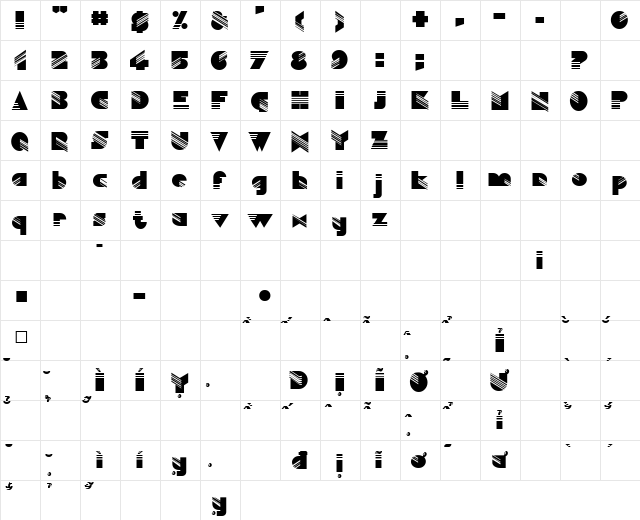
VNI-Aztek Bold Font Preview
VNI-Aztek Bold
Design Context for VNI-Aztek Typeface
VNI-Aztek is a composed and adaptable typeface that performs quietly and consistently across a wide range of design contexts. The heavy weight commands attention and anchors typographic hierarchies.